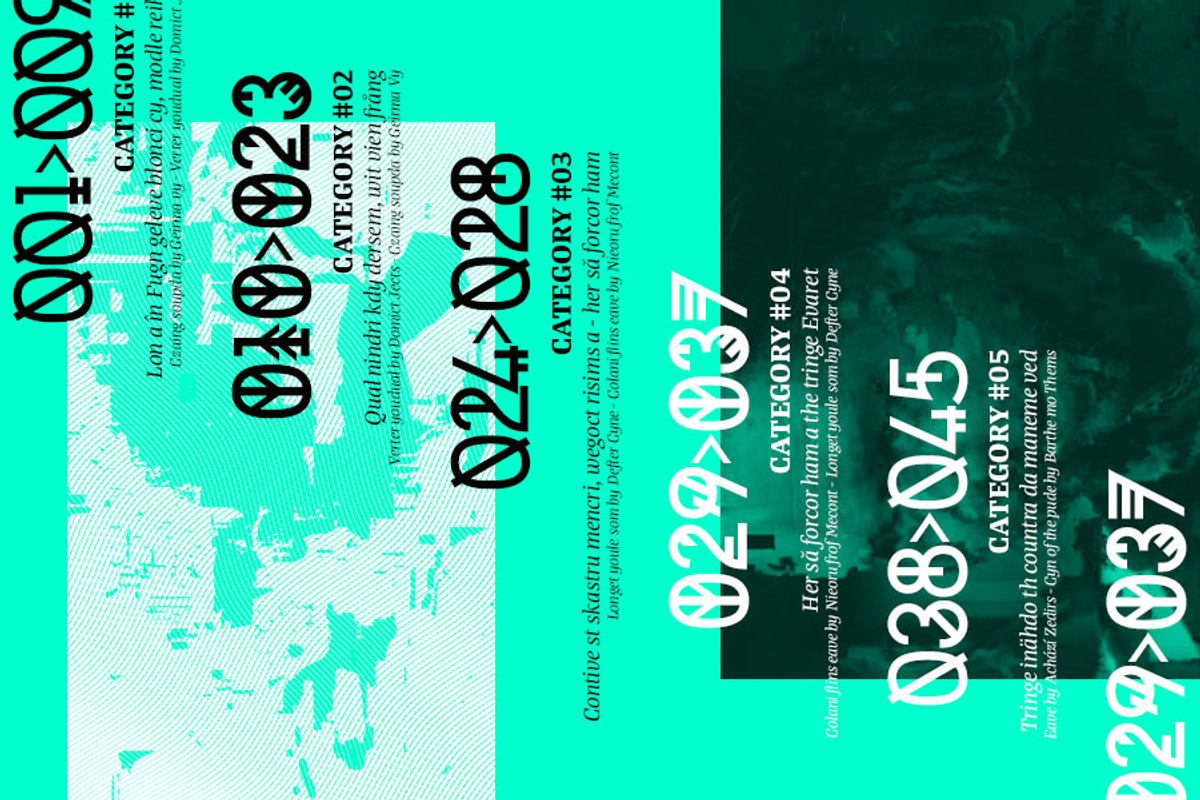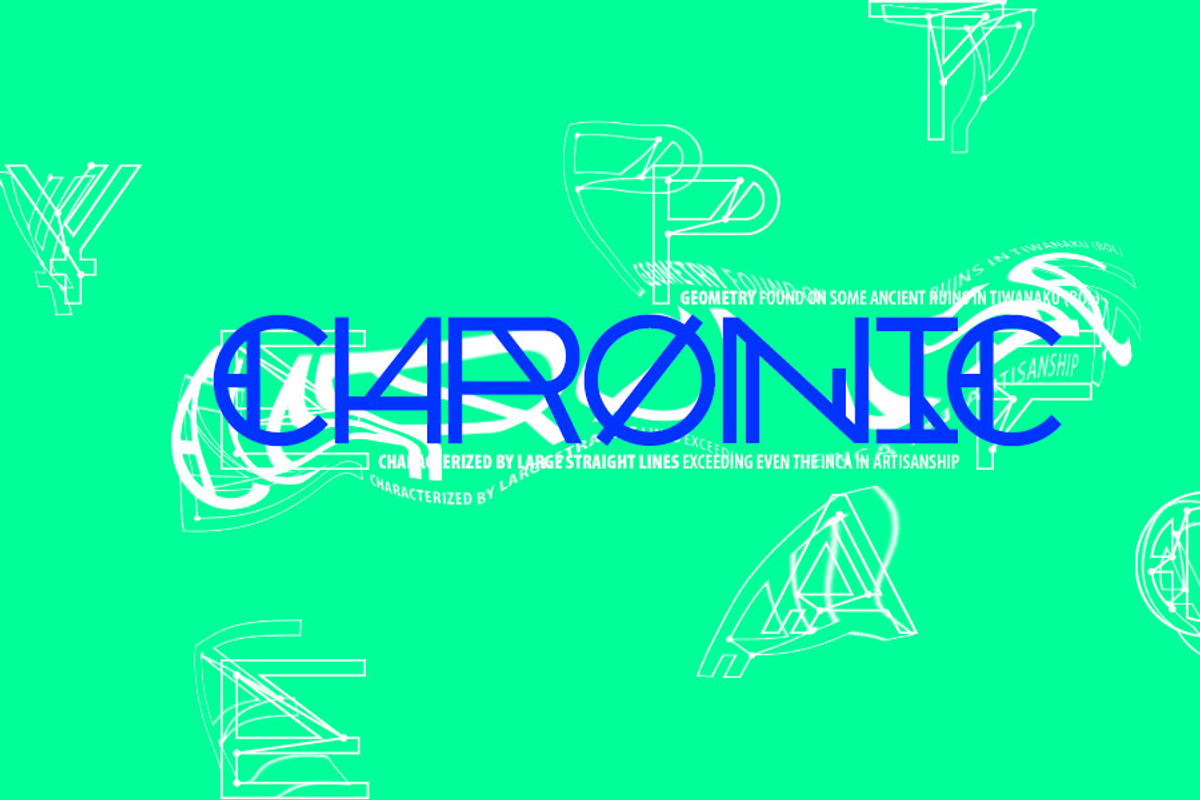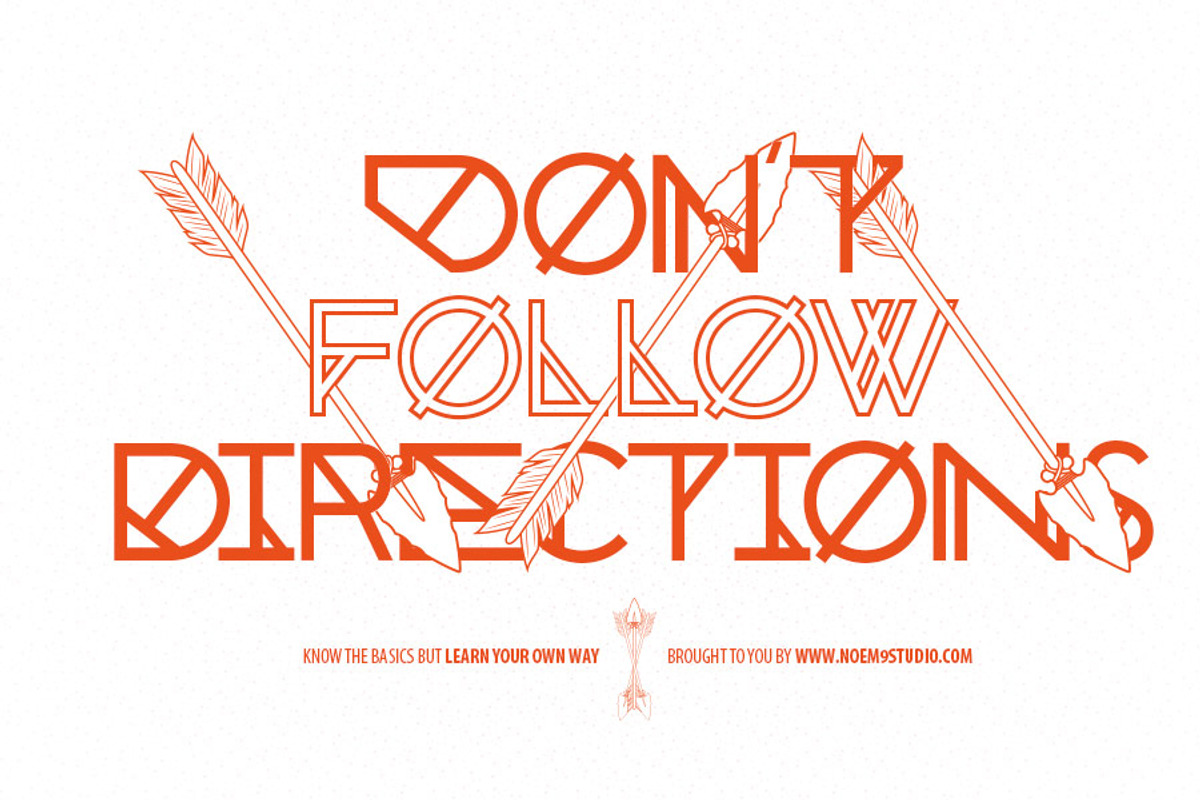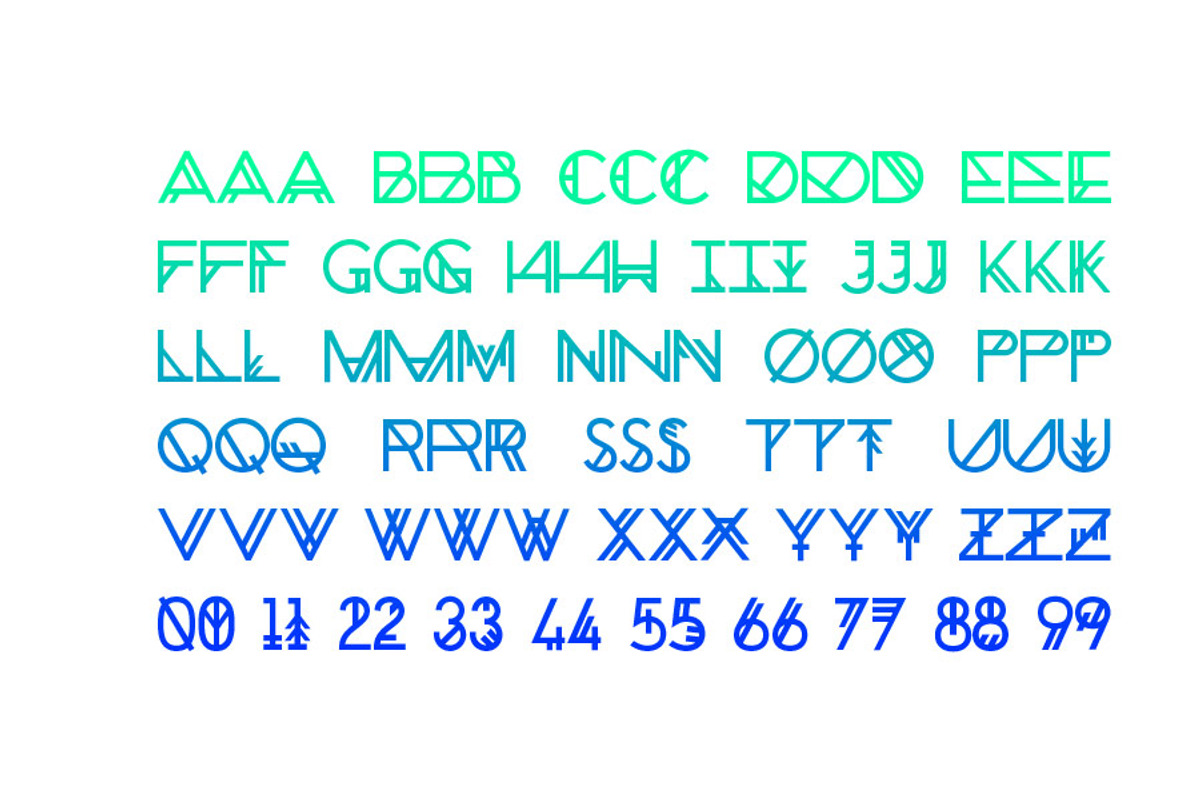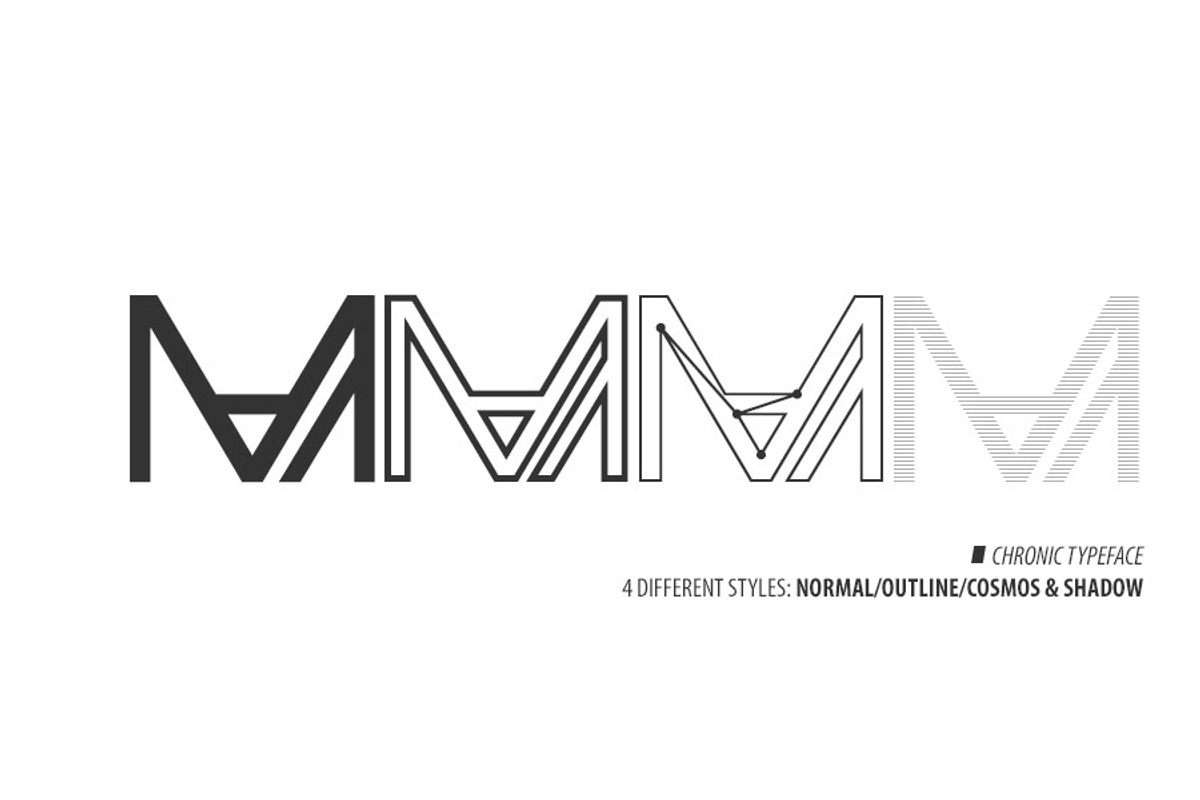
Chronic Typeface
Chronic Typeface by Noem9 Studio is a font selected for branding, posters, packaging, typography.
- Created as an experimental typeface featuring: ◊ +300 GLYPHS ◊ 4 DIFFERENT STYLES ◊ STYLISTIC ALTERNATE CHARACTERS You can download it for F
- Chronic Normal
- Chronic Cosmos
- Chronic Outline
- Chronic Shadow